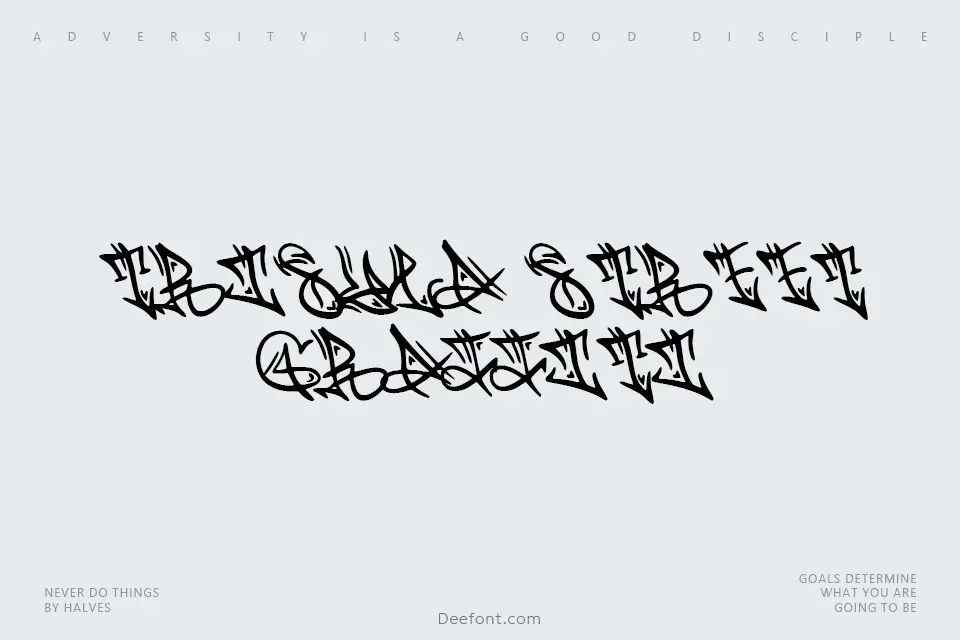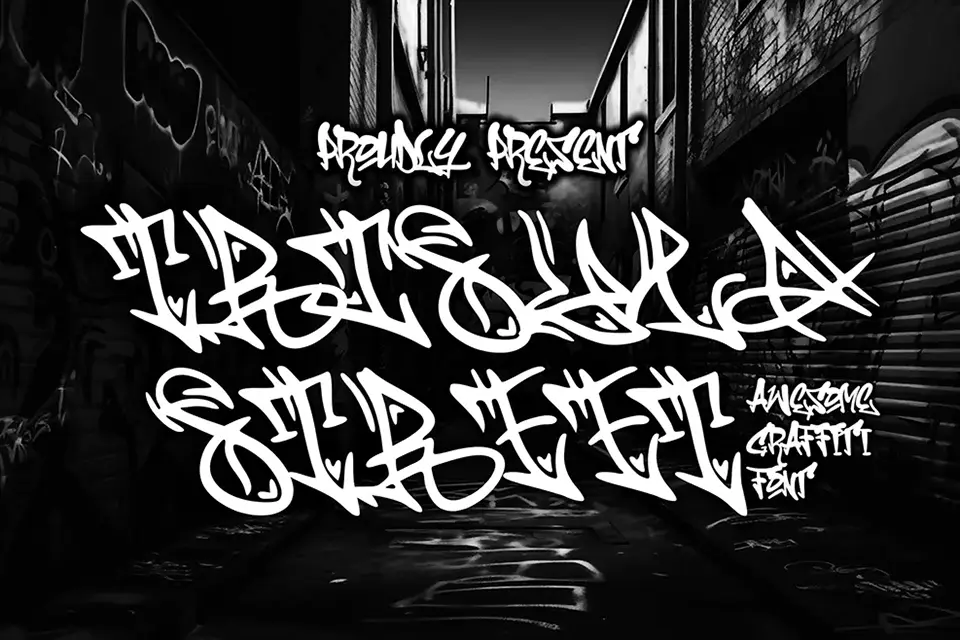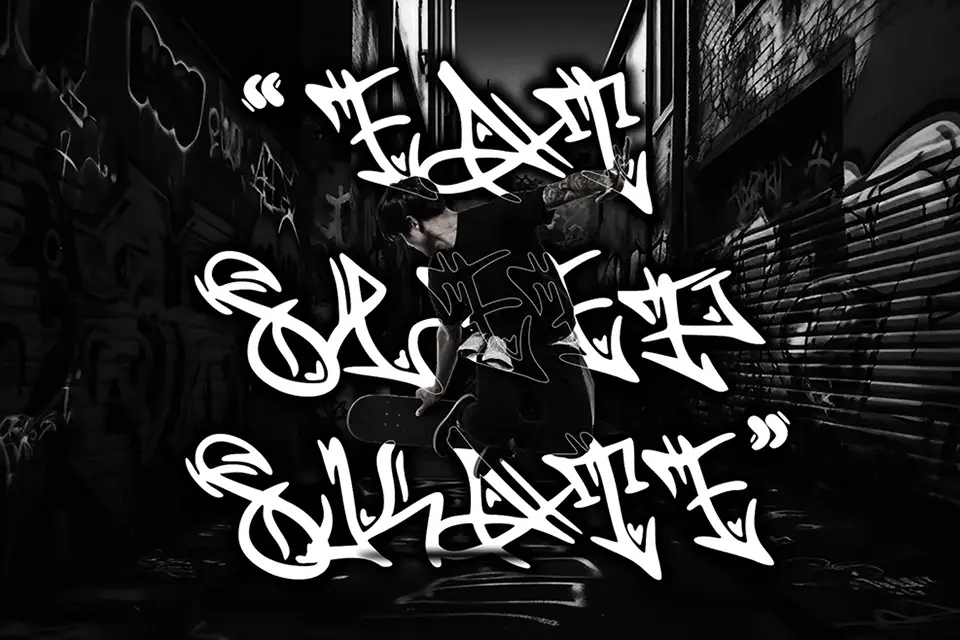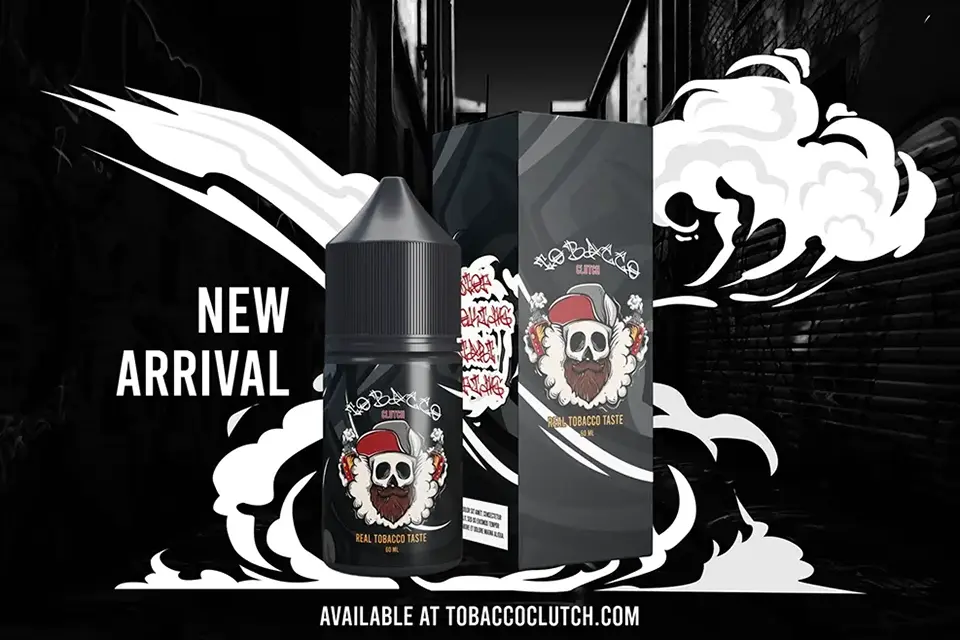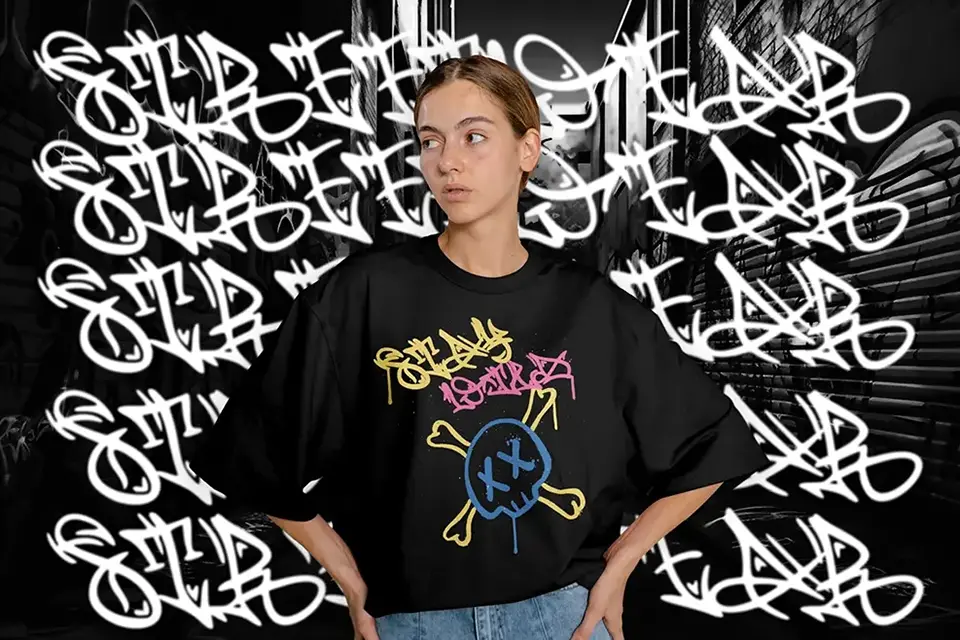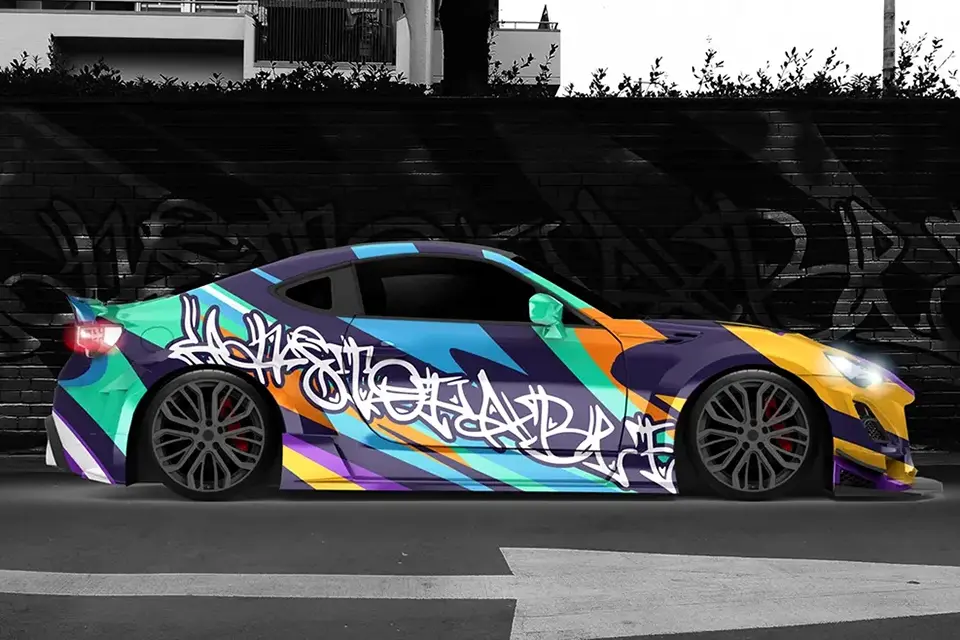
Trisula Street Graffiti Font
Trisula Street Graffiti is an expressive and intricate monoline graffiti display font featuring urban aesthetic and rebellious mood. Created by Cikareotype Studio, this free font showcases whirls and loops with distinctive character complexity, perfectly suited for branding, graffiti art, murals, logotypes, titles, posters, and photography display projects. Its authentic street energy and handstyle inspiration make it ideal for streetwear designs, car decals, merchandise packaging, and creative urban-themed applications.